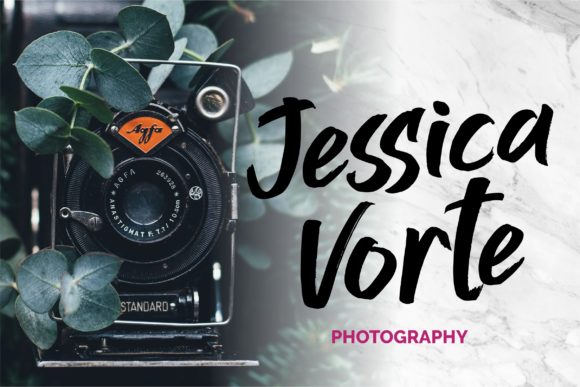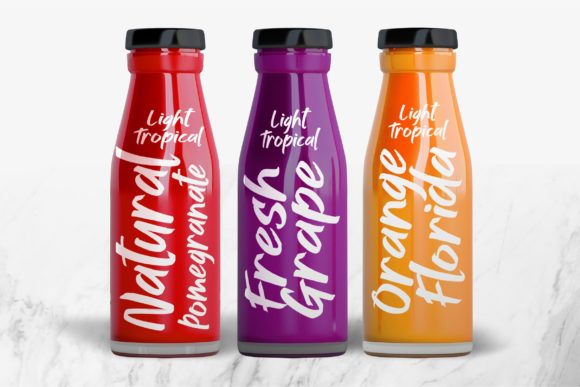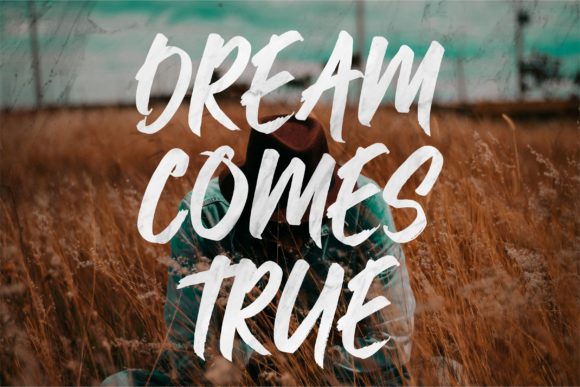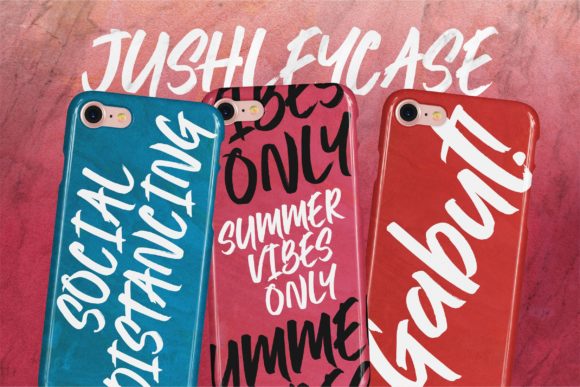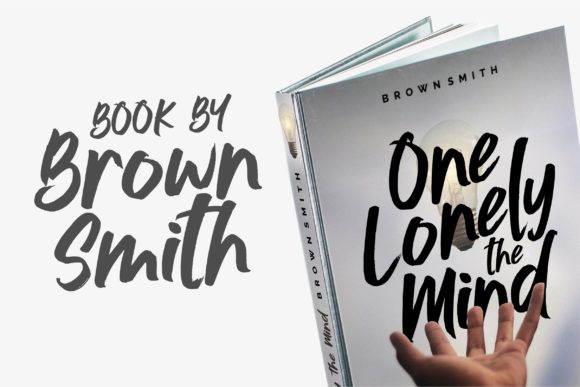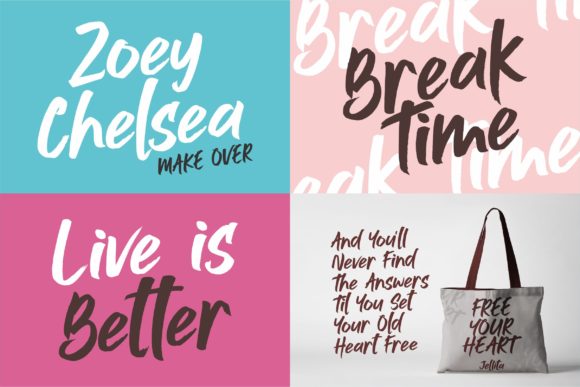
Introduction to Jushley Shine Font
Jushley Shine is an unique and elegant handwritten font, designed with the help of an outstanding brush pen.
It will look spectacular in any context, whether itโs being used on busy backgrounds or as a standalone headline .